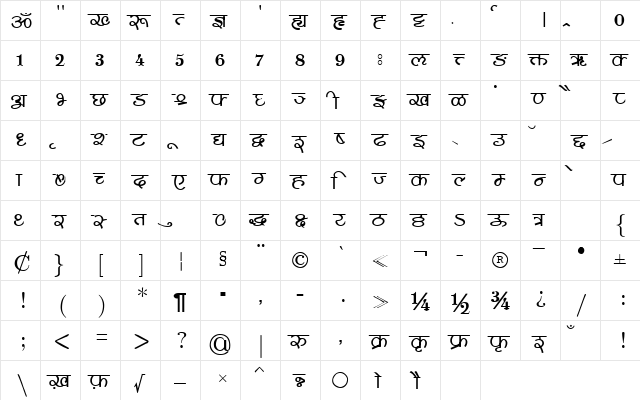
Shusha05 Normal Font Preview
Shusha05 Normal
Shusha05 Normal Font Details
Design Context for Shusha05 Typeface
Shusha05 is a composed and adaptable typeface that performs quietly and consistently across a wide range of design contexts.